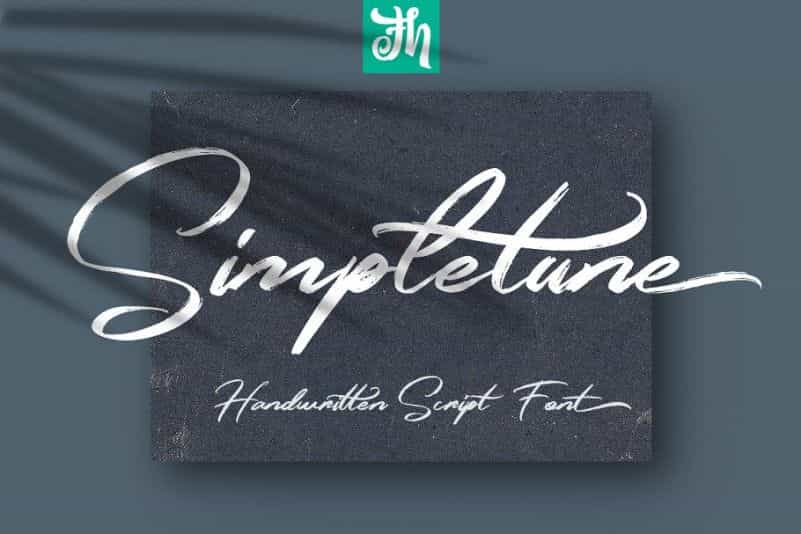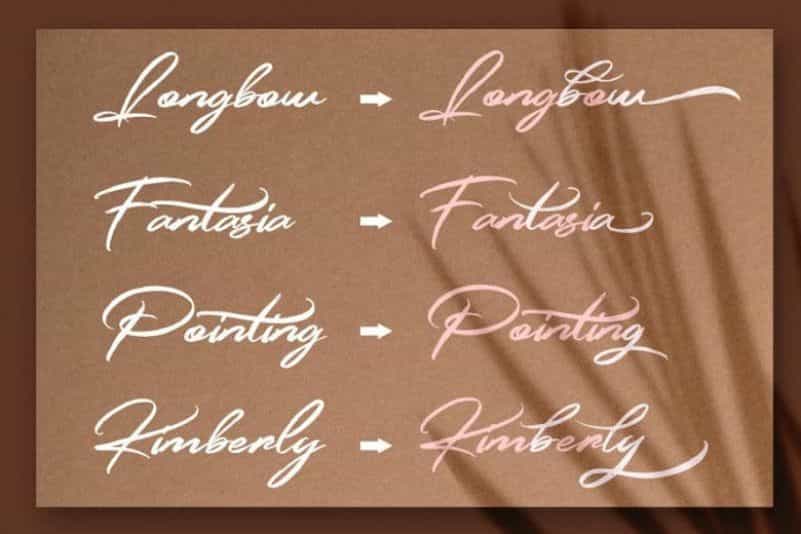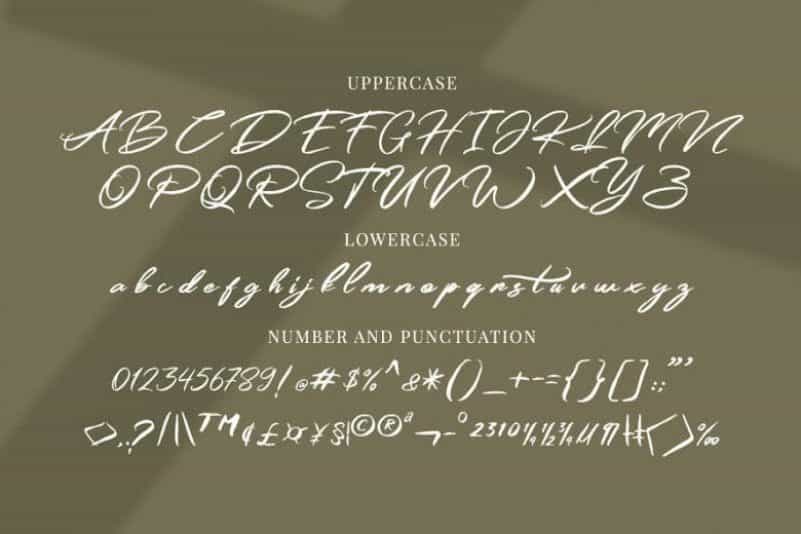
Introducing Simpletune Handwritten Script Font. Simpletune is handwritten script font with dry brush and signature style. Suitable to creates a casual elegant text.